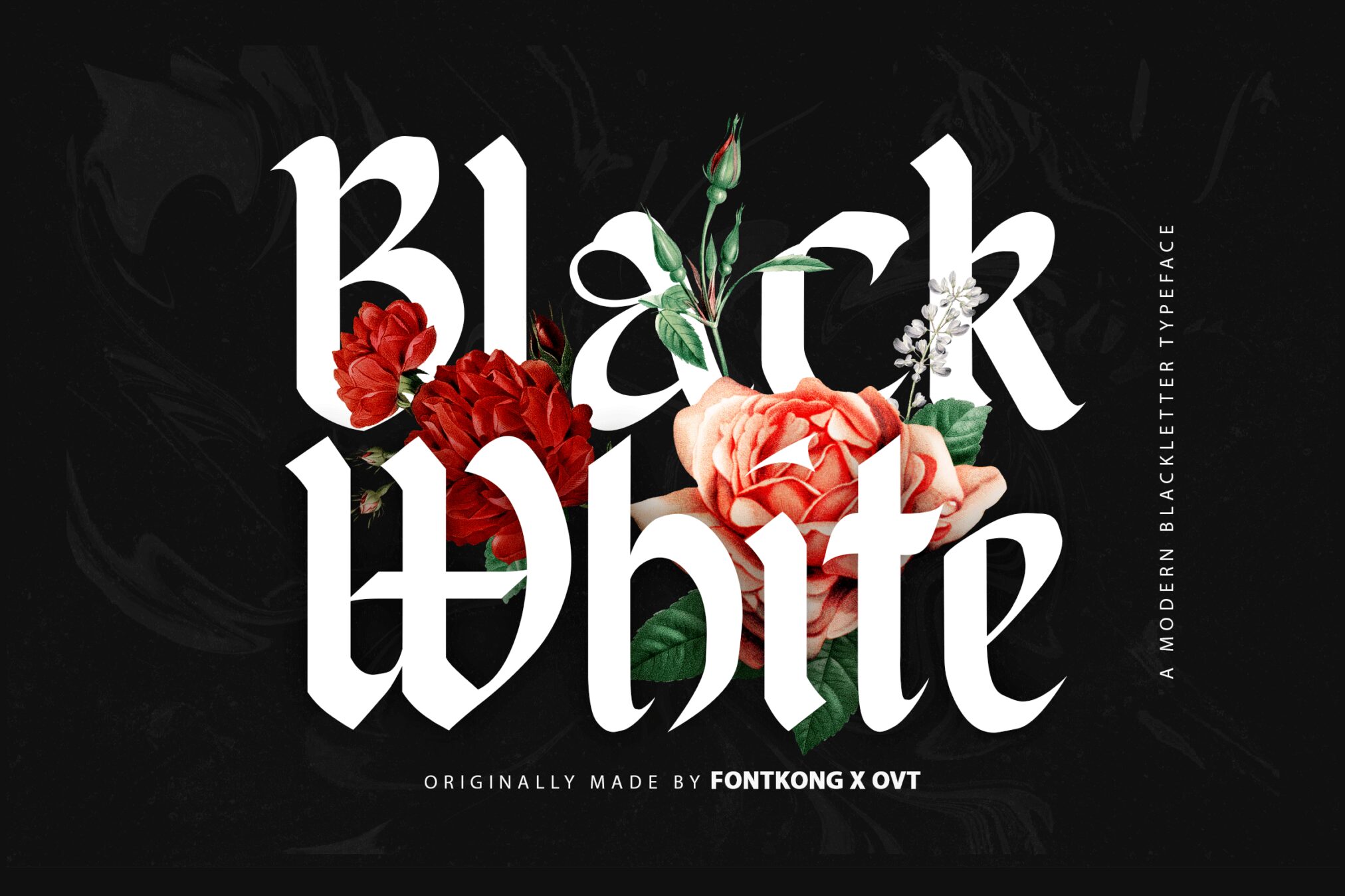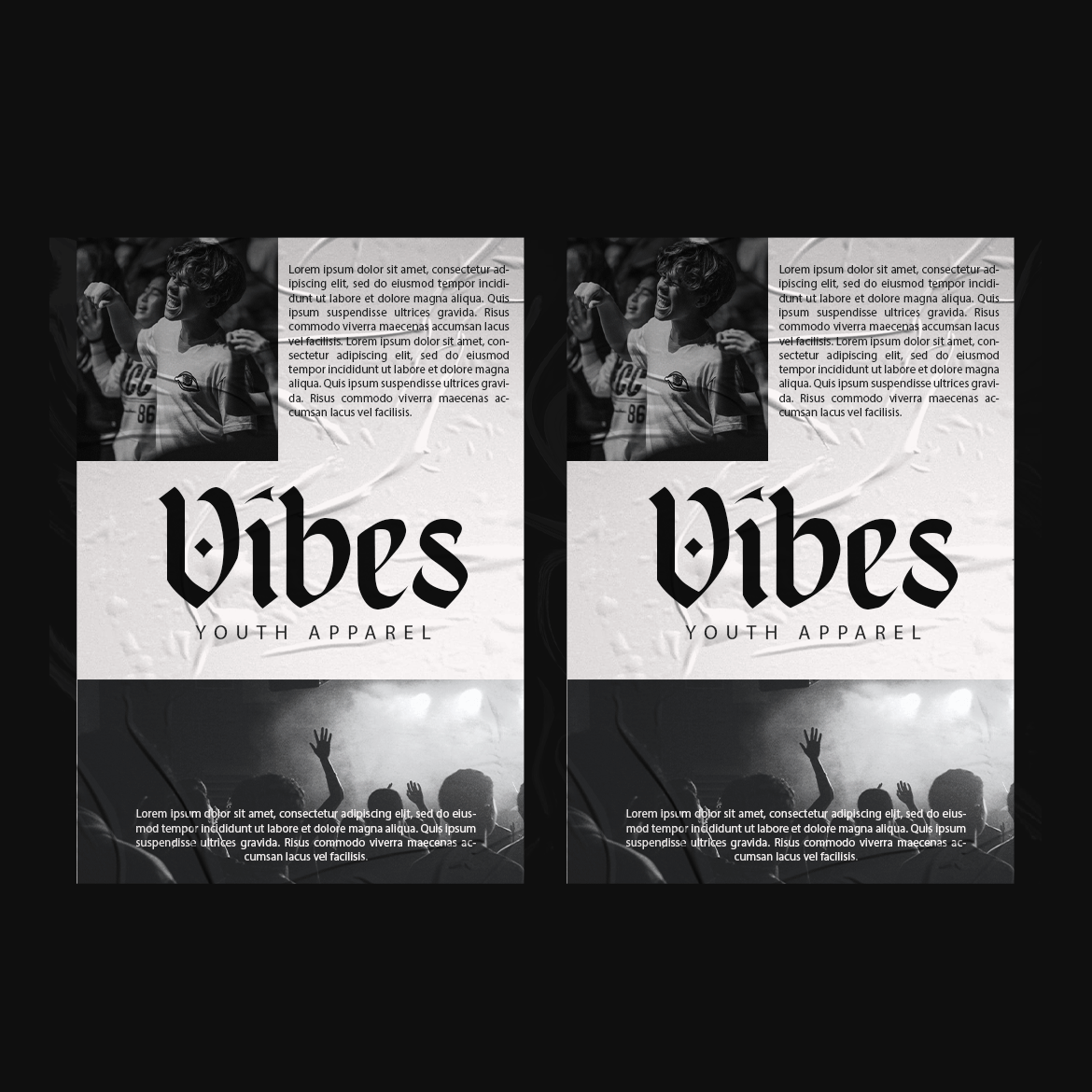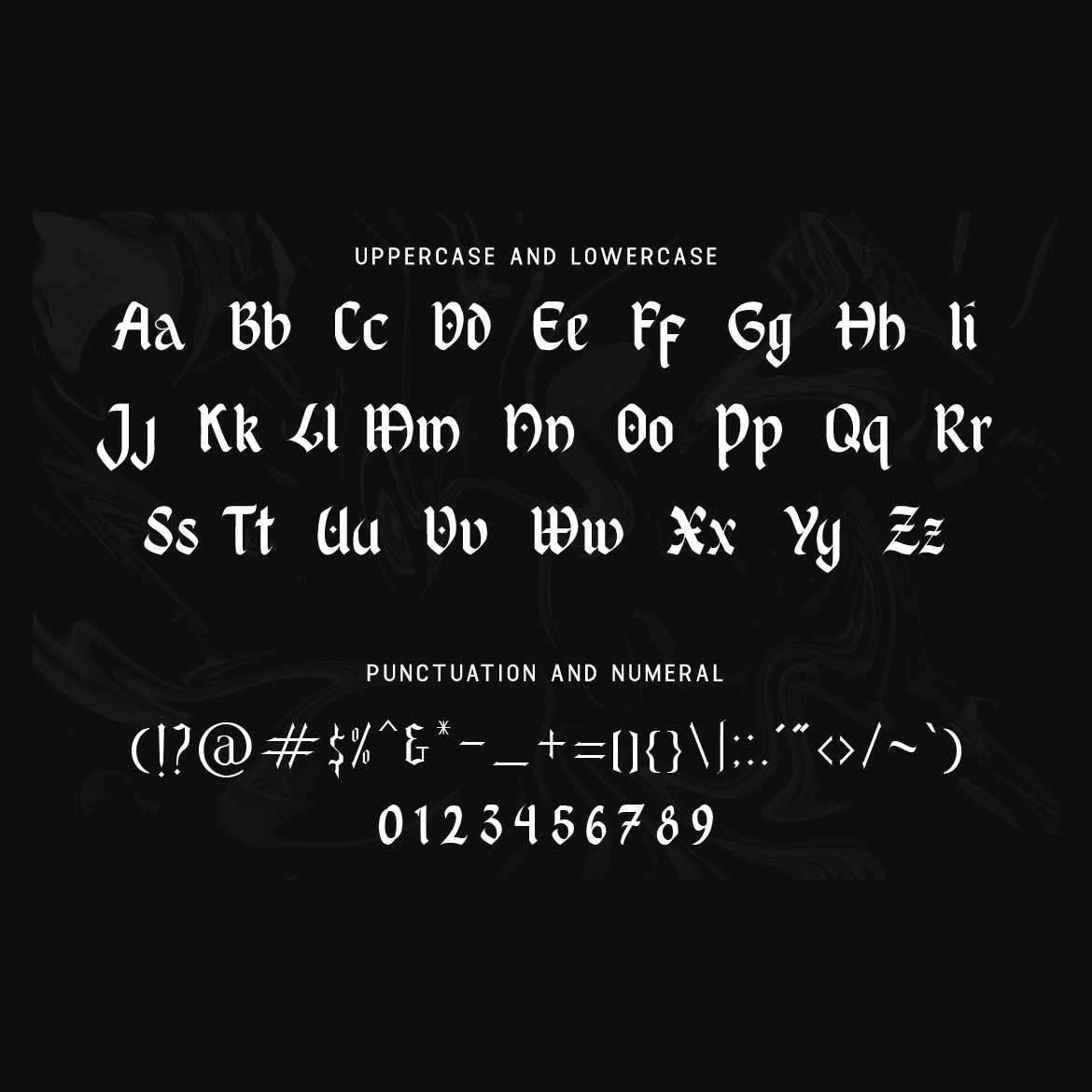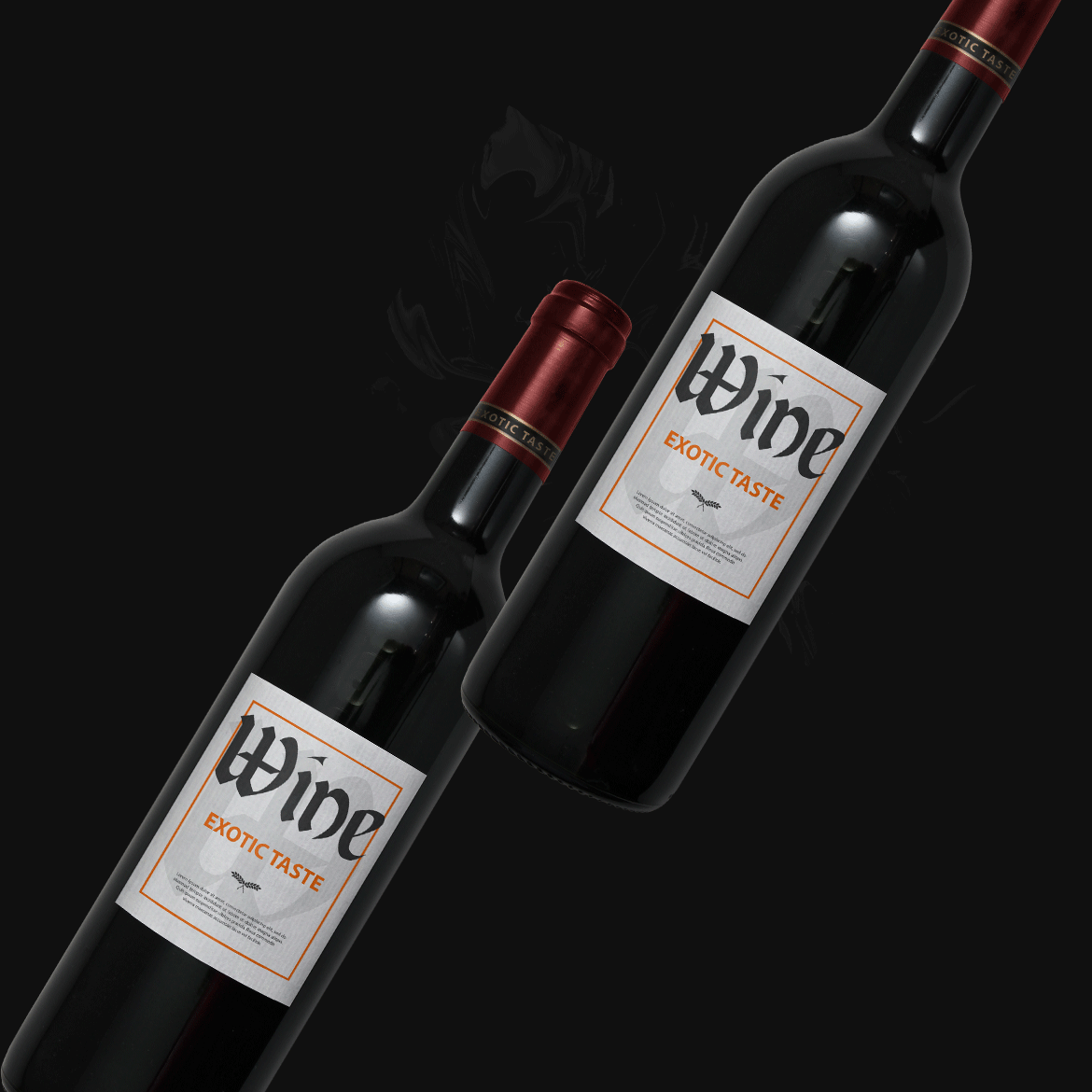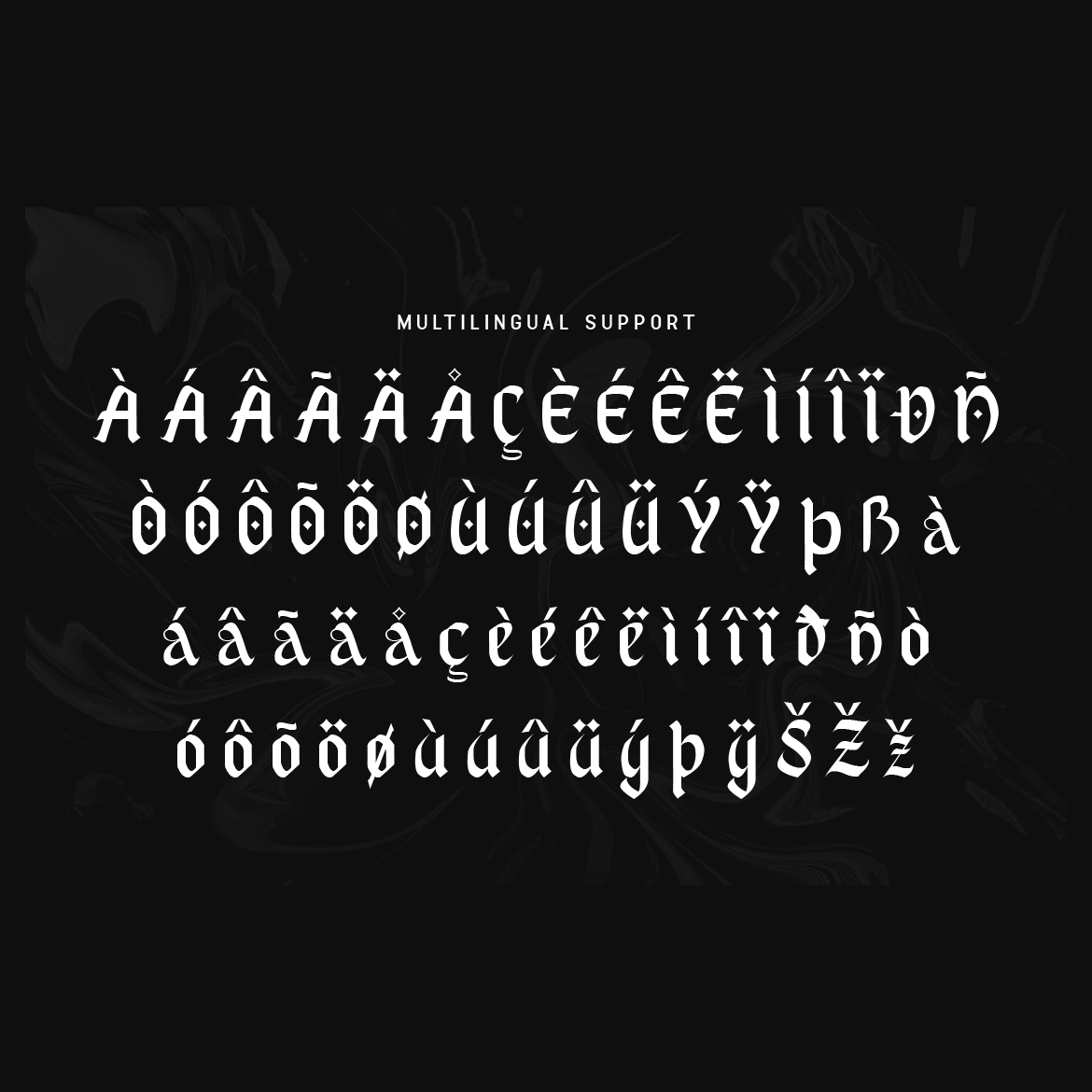
**Black White – A Modern Blackletter Typeface**
Black White is a bold and contemporary blackletter typeface designed to infuse your design projects with a mix of tradition and modernity. With its striking letterforms and intricate details, Black White is perfect for edgy branding, eye-catching posters, album covers, and unique merchandise. This font combines the historical essence of blackletter with a modern twist, ensuring your work stands out with a distinctive and powerful presence.
Crafted with meticulous detail, Black White features strong characters that provide excellent readability and visual impact. Its bold design makes it ideal for headlines and display text, giving your projects a memorable and commanding presence. The font’s versatility allows it to adapt to various design contexts, from digital platforms to printed materials, making it a valuable asset for any designer.
Elevate your design projects with Black White, a font that embodies the perfect blend of tradition and contemporary style. Its unique character and adaptability make it an essential addition to any designer’s toolkit. Make a statement with Black White and experience the power of modern blackletter typography.